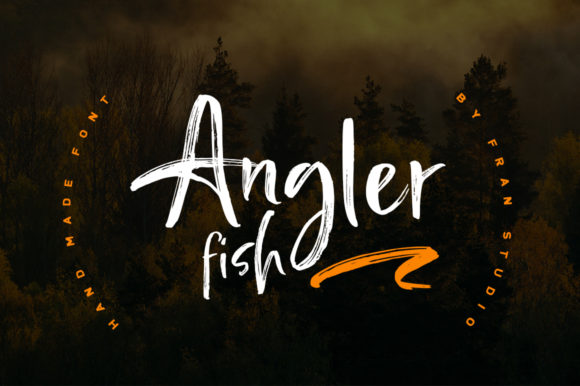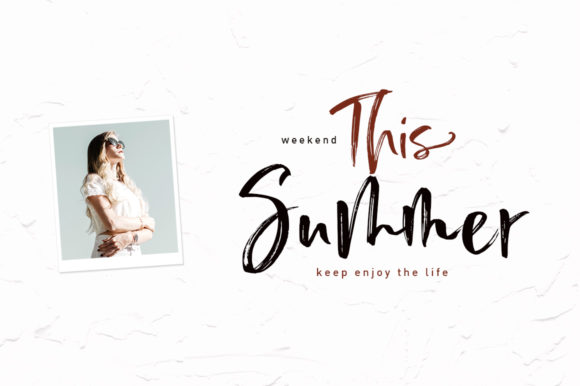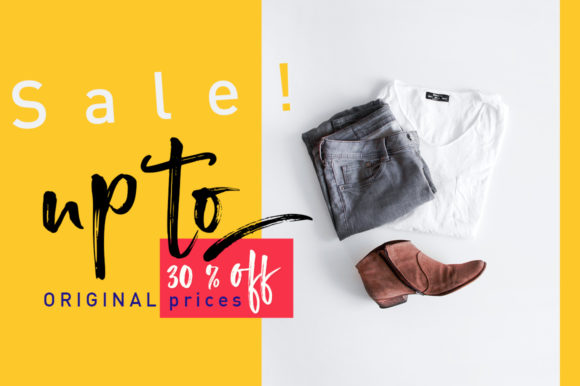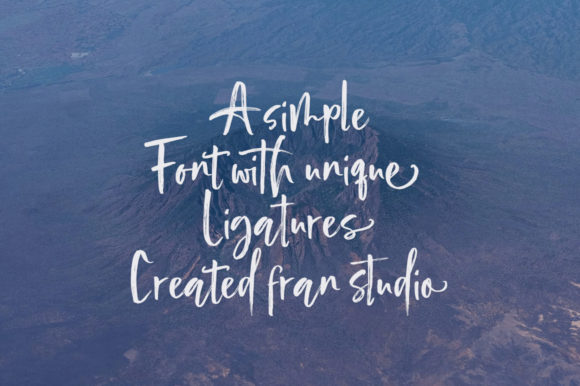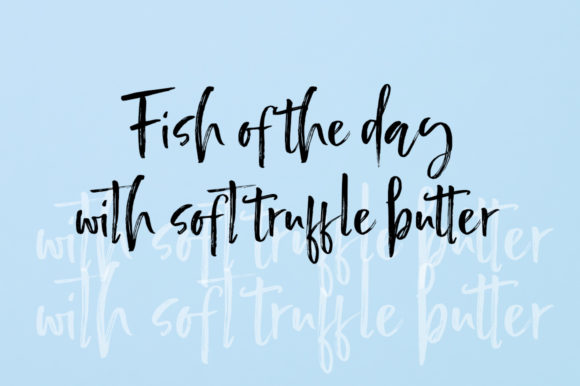
Angler Fish Font
About Angler Fish Font
Angler Fish is a beautiful handwritten font, described by an elegant touch, perfect for your favorite projects. Fall in love with its incredibly distinct and timeless style and use it to create spectacular designs! This font is PUA encoded which means you can access all of the glyphs and swashes with ease! It features a varying baseline, smooth lines, gorgeous glyphs and stunning alternates.